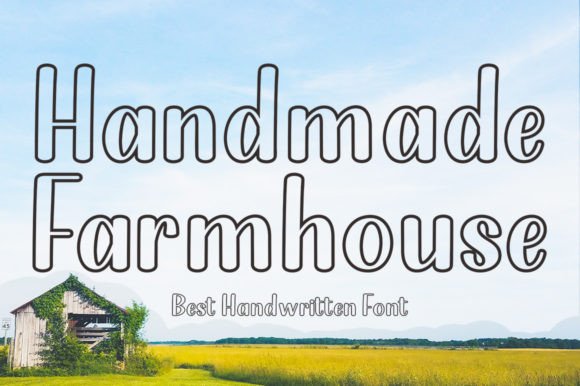
Introducing Handmade Farmhouse Outline Font, the ultimate script font designed to add a touch of warmth and coziness to your projects. Created by the talented team at rotterlabstudio, this font is a labor of love, meticulously handcrafted to become your go-to choice for all things handwritten and stylish.
With its charming and rustic appeal, Handmade Farmhouse Outline Font is the perfect choice for anyone looking to make a statement. Whether you're designing a logo, creating invitations, or crafting eye-catching headings, this font will effortlessly elevate your work and leave a lasting impression.
Imagine the feeling of authenticity and uniqueness that this font brings to your designs. Its hand-drawn nature exudes a sense of craftsmanship and personal touch that is hard to find elsewhere. Each letter is carefully crafted, allowing you to create stunning compositions that truly stand out from the crowd.
One of the key features of Handmade Farmhouse Outline Font is its versatility. It seamlessly adapts to various design purposes, making it an ideal choice for t-shirts, letterheads, signage, labels, news articles, posters, badges, and so much more. The possibilities are endless, and your creativity is the only limit.
When it comes to capturing attention and captivating your audience, words alone are not enough. Handmade Farmhouse Outline Font brings emotion and life to your projects. Its organic and flowing strokes evoke a sense of nostalgia, comfort, and authenticity, instantly drawing viewers in and leaving a lasting impression.